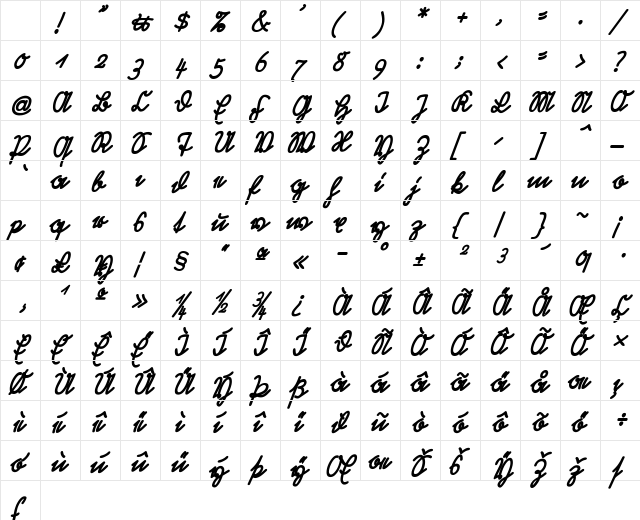
Complete Rastenburg Schraeg U1SY Bold glyph index. Displaying only characters natively supported by Rastenburg Schraeg U1SY Bold font.
Rastenburg Schraeg U1SY is a composed and adaptable typeface that performs quietly and consistently across a wide range of design contexts. Its bold stroke weight gives it real presence on the page.